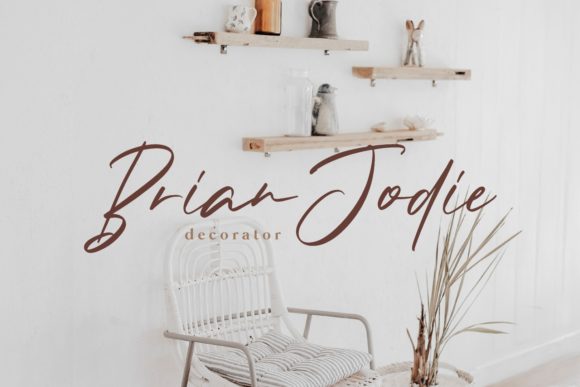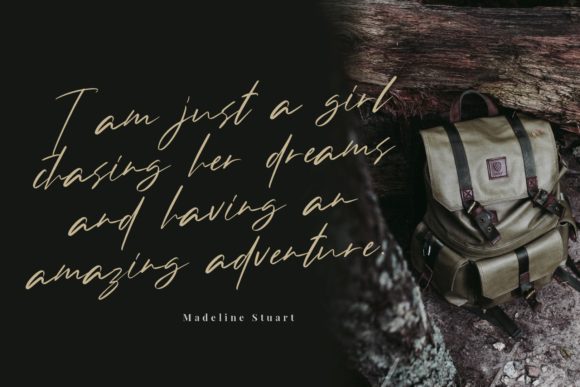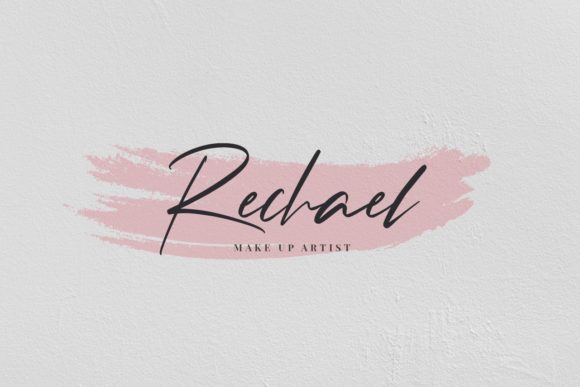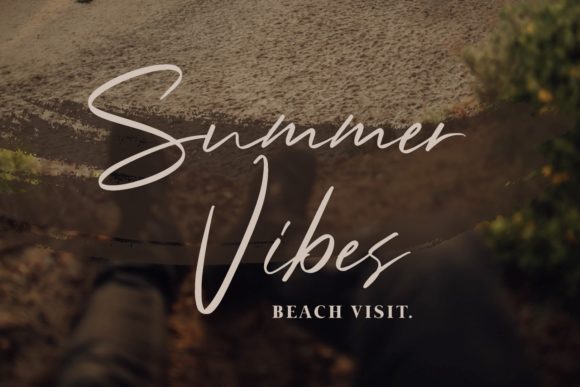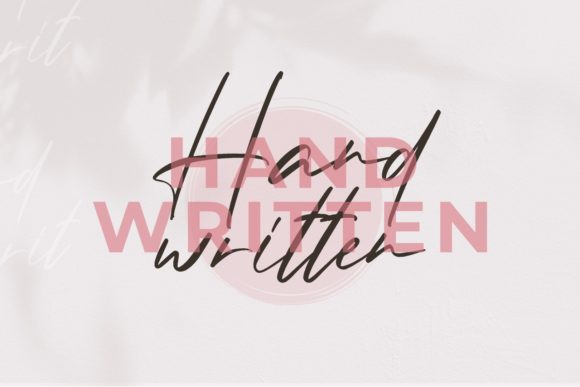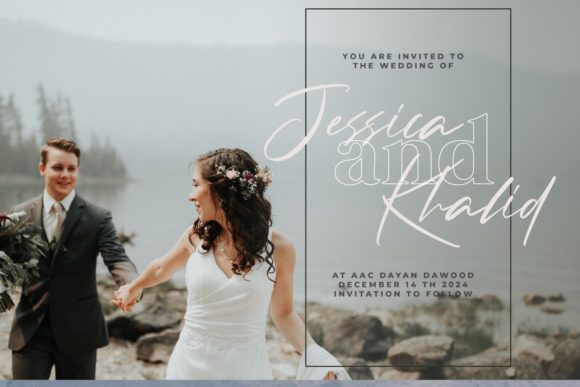
Discover the Magic of Andrea Roft Font
Have you ever sat at your desk, staring at a blank page, feeling stuck and uninspired? You’re not alone! We’ve all been there at some point or another. But then, something magical happens – you stumble upon a font that sparks your creativity and sets your imagination ablaze. For many designers, this moment is exactly what they’re looking for in a font, and that’s where Andrea Roft Font comes in.
Andrea Roft Font is a stunning and fun handwritten font with a bold feel that’s perfect for designers looking to add a touch of personality to their projects. With its unique charm, it’s no wonder why designers are falling in love with this font. Whether you’re creating a new logo, designing a website, or crafting a marketing campaign, Andrea Roft Font is the perfect addition to take your work to the next level.
As a valuable tool for designers, Andrea Roft Font offers a level of flexibility and creativity that’s hard to find in other fonts. Its bold feel and unique charm make it the perfect choice for designers looking to add a touch of personality to their work.
Andrea Roft Font Key Features
- Font Family: Andrea Roft is a script font with a unique, hand-painted feel.
- Unique Characteristics: Features a distinctive, whimsical design with subtle brushstrokes and irregularities, giving it a personal touch.
Andrea Roft Font Review
After using the Andrea Roft font, I must say it has its strengths and weaknesses. ✨ Here are some of the things that work well:
- Unique Character: The font has a distinct, elegant touch that can elevate any design project.
- High-Quality Rendering: The font renders beautifully in various sizes and styles, making it a great choice for printing and digital use.
- Good Legibility: The font is clear and easy to read, even in smaller font sizes.
- Limited Font Styles: The Andrea Roft font comes in a limited range of styles, which may not be suitable for projects that require multiple font variations.
- Not Ideal for Headings: While the font looks great for body text, it may not be the best choice for headings due to its relatively subtle design.
- May Not Suit Bold Typography: The font’s elegant design may not be suitable for bold or dramatic typography, which can be a limitation for some designers.
Overall, I think the Andrea Roft font is a solid choice for designers who want a high-quality, elegant font for body text. However, it may not be the best fit for projects that require multiple font styles or bold typography.
Tips for Getting the Most Out of Andrea Rofe Font
Use Andrea Rofe font for creative and artistic projects, such as wedding invitations, birthday cards, and posters.
Combine Andrea Rofe font with other fonts to create a unique and eye-catching design.
Experiment with different font sizes, colors, and styles to achieve the desired effect.
Andrea Rofe font is commonly used for:
Birthday cards and party invitations
Posters and flyers for events and promotions